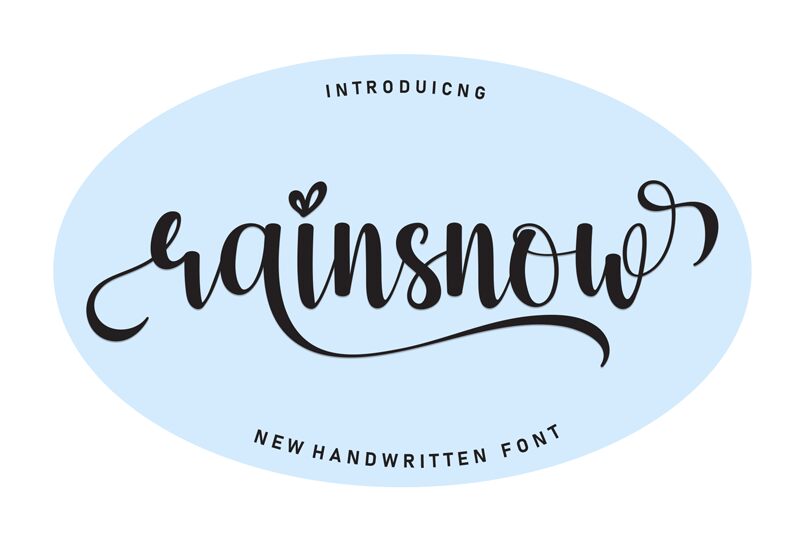
Rainsnow font by Scratchones is a free modern script typeface with a friendly handwritten style. It is meant to present a blend of elegant and classic styles, yet its newest appearance makes it highly usable for more modern day projects. It is a whimsical typeface with great flowing, expressive and playful letters that will make your document a whole lot more fun.
Rainsnow will be the perfect choice for many projects such as invitations, posters, babies, and kids’ accessories, and more. Use it for websites, social media posts, business cards, food packaging, and clothing apparel for great results. You get access to both lettering and ornaments.
The latest style letters are perfect for wall displays, wedding invitations, social media logos, advertisements, product packaging, product designs, labels, photography, watermarks, invitations, stationery, and any project that requires stylish handwriting.